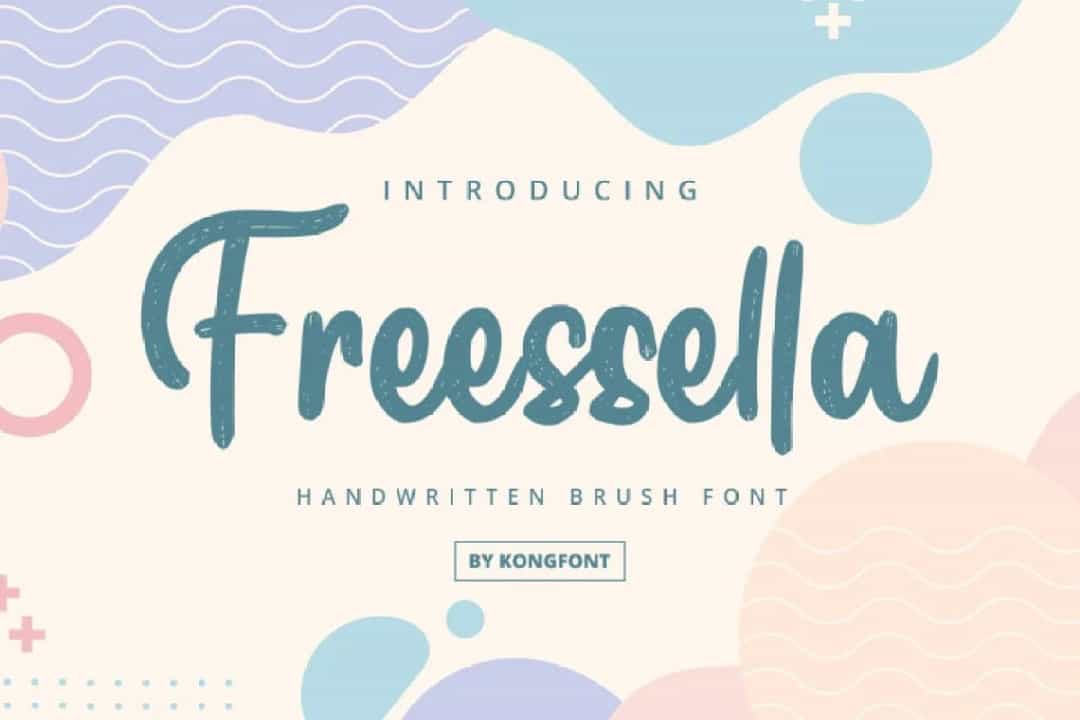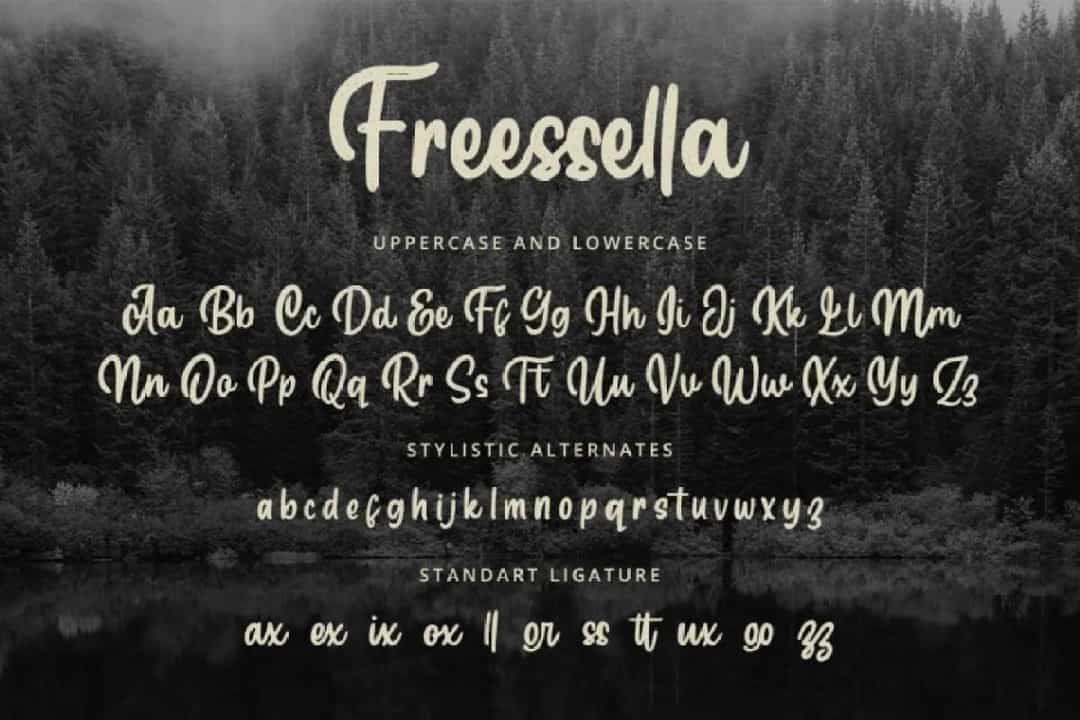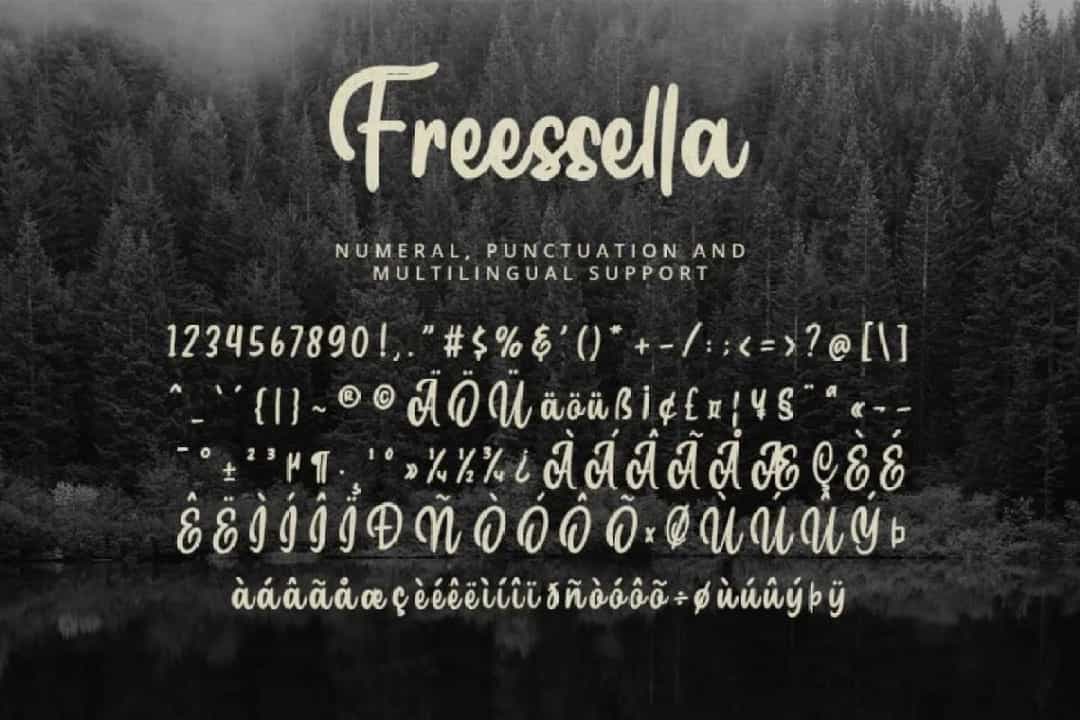
Freessella is an elegant handwritten script font featuring intricate detailing on every letter. Crafted using specific brush strokes, Freessella can help your designs stand out with its retro style!